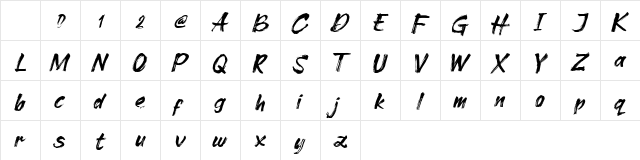
Complete Cleopharta demo glyph index. Displaying only characters natively supported by Cleopharta demo font.
Cleopharta demo is a composed and adaptable typeface that performs quietly and consistently across a wide range of design contexts.